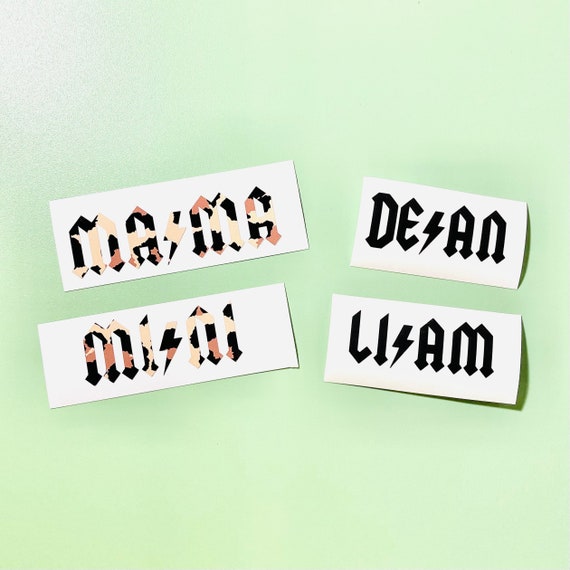
ACDC Font | Heavy Metal Font | Rocker Font | ACDC Name | Heavy Metal Name | Rocker Name | Mini ACDC | Lightning Bolt Name | Rock Band Font
Rocker/Heavy Metal Font Name Self-Adhesive Vinyl Decal